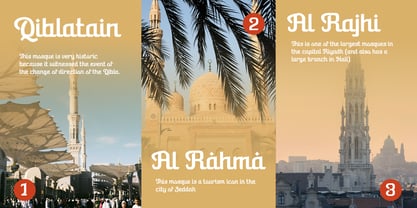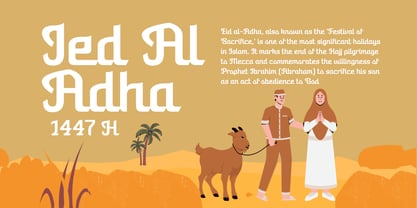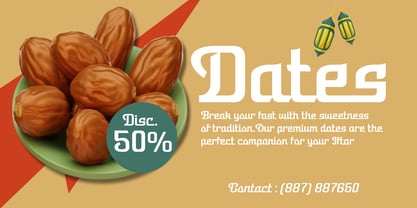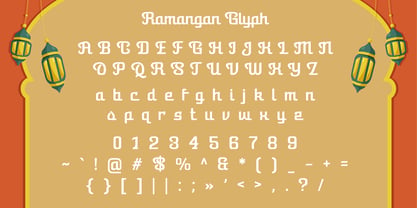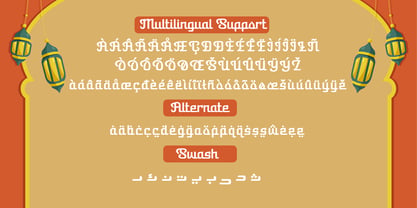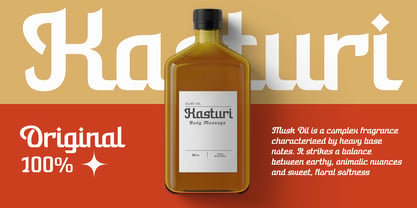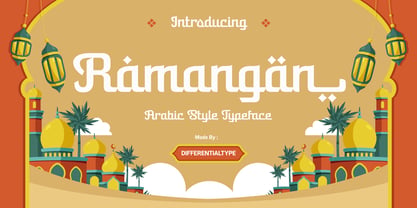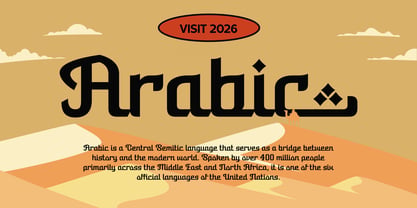
Ramangan
by Differentialtype
The Ramangan Font Family was designed by Sidik Sidik and published by Differentialtype. Ramangan contains 2 styles and family package options. More about this family
Ramangan is a captivating Arabic-style display font designed to bring the soul and elegance of the Middle East directly to your creative canvas. Featuring both Regular and Italic styles, this typeface perfectly balances traditional calligraphic strokes with a modern aesthetic, making it an essential choice for festive projects such as Ramadan, Eid al-Fitr, and Eid al-Adha greetings, as well as exotic product branding and cultural editorials. With its fluid curves and authentic Middle Eastern flair, Ramangan transforms any layout into a premium visual experience—add this versatile font to your design toolkit today and let the timeless beauty of Arabian artistry elevate your work to new heights.
Designers: Sidik Sidik
Foundry: Differentialtype